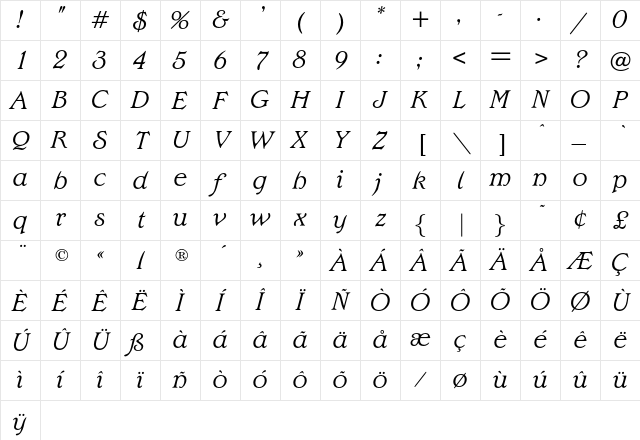
Complete OPTI Edwalian Light Italic glyph index. Displaying only characters natively supported by OPTI Edwalian Light Italic font.
OPTI Edwalian Light is a composed and adaptable typeface that performs quietly and consistently across a wide range of design contexts. The slanted form adds forward momentum and visual energy. Its slender proportions lend an understated elegance to any composition.
Pro Tip: Use OPTI Edwalian Light for emphasis, pull quotes, and subheadings where its slanted energy can add rhythm to the layout.